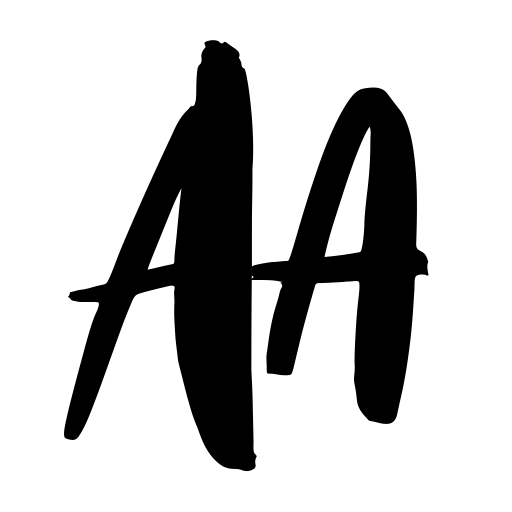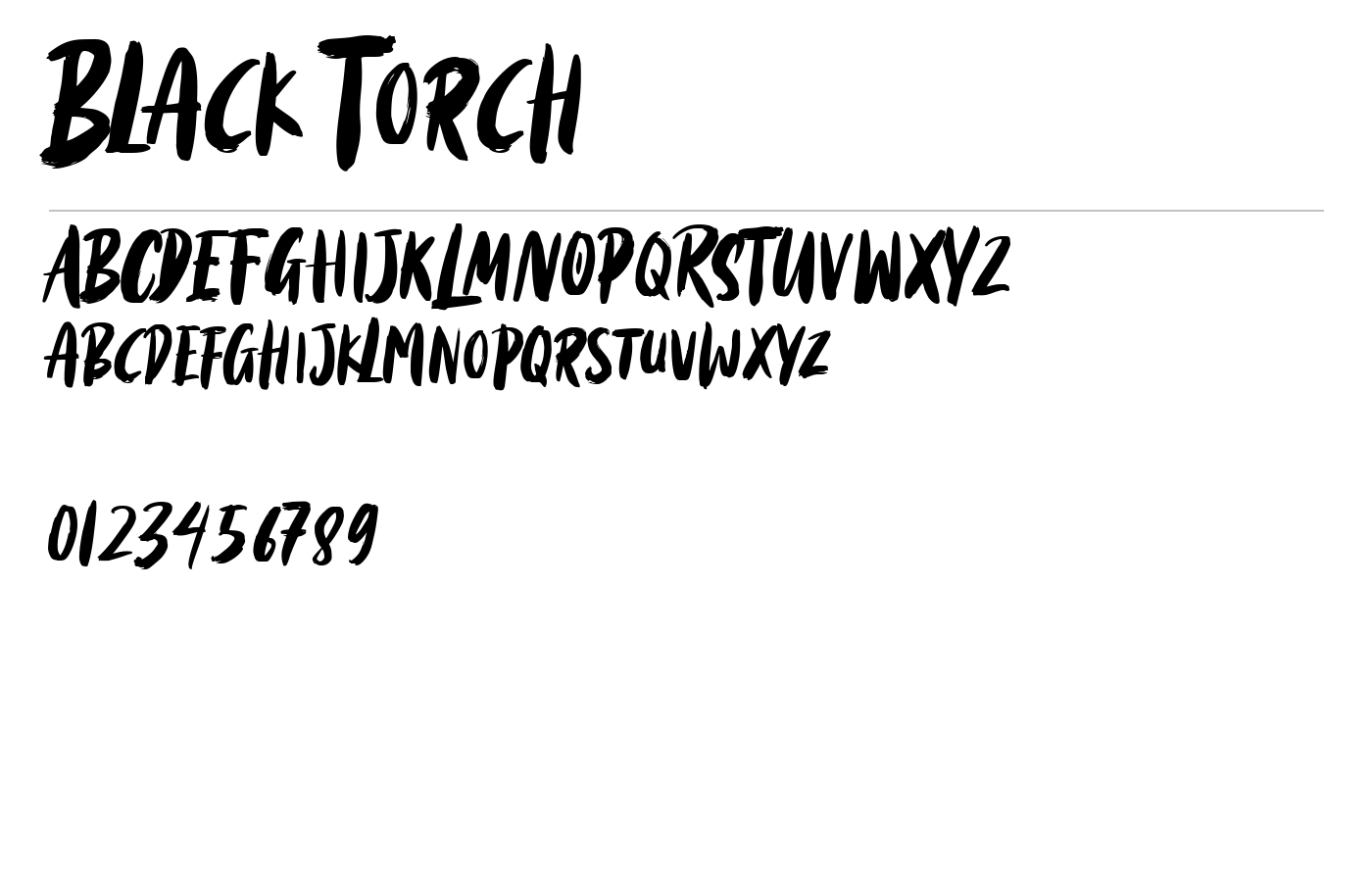
Black Torch is a bold, hand-brushed sans serif font with an energetic and expressive style. Its irregular, brushstroke texture and slightly condensed letterforms give it a dynamic, edgy feel perfect for eye-catching headlines, logos, and creative projects that need a modern, artistic touch. This font works well in designs aiming to convey boldness, creativity, and a handcrafted vibe.
Black Torch Font
About Black Torch Font
| Font family | Black Torch Font |
| Designer | Weape Studio |